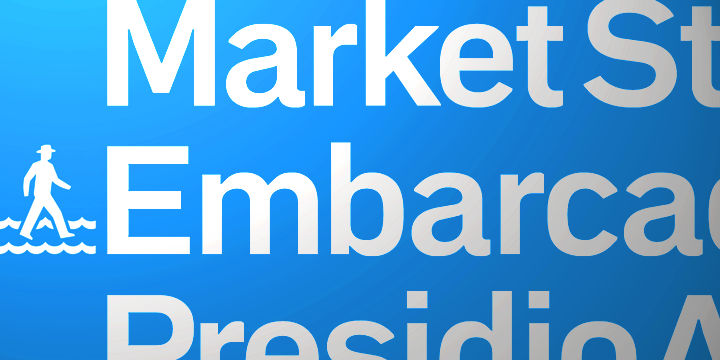
MVB Embarcadero Font is perfect for premium branding projects, luxury packaging design, high-end magazine layouts, sophisticated book covers, elegant wedding invitations, upscale restaurant menus, corporate identity systems, and professional business cards that demand visual excellence.
What makes MVB Embarcadero Font truly exciting is its exceptional balance between classic elegance and contemporary sophistication. This remarkable typeface captures the essence of San Francisco's iconic waterfront district, combining architectural precision with artistic flair. The font's carefully crafted letterforms feature subtle curves and refined details that create an unmistakable sense of premium quality and professional distinction.
The MVB Embarcadero Font family includes multiple weights and styles: Regular, Bold, Light, Medium, and Italic variations. Each family member maintains the distinctive character while offering versatility for different design applications. The comprehensive character set supports extended Latin languages, making it suitable for international projects.
When you choose MVB Embarcadero Font Free Download, you're selecting a typography solution that elevates any design project. This versatile typeface works exceptionally well in both digital and print media, offering excellent readability at various sizes. Whether you're creating stunning headlines, body text, or display applications, this font delivers consistent performance and visual impact that resonates with discerning audiences who appreciate sophisticated design aesthetics.